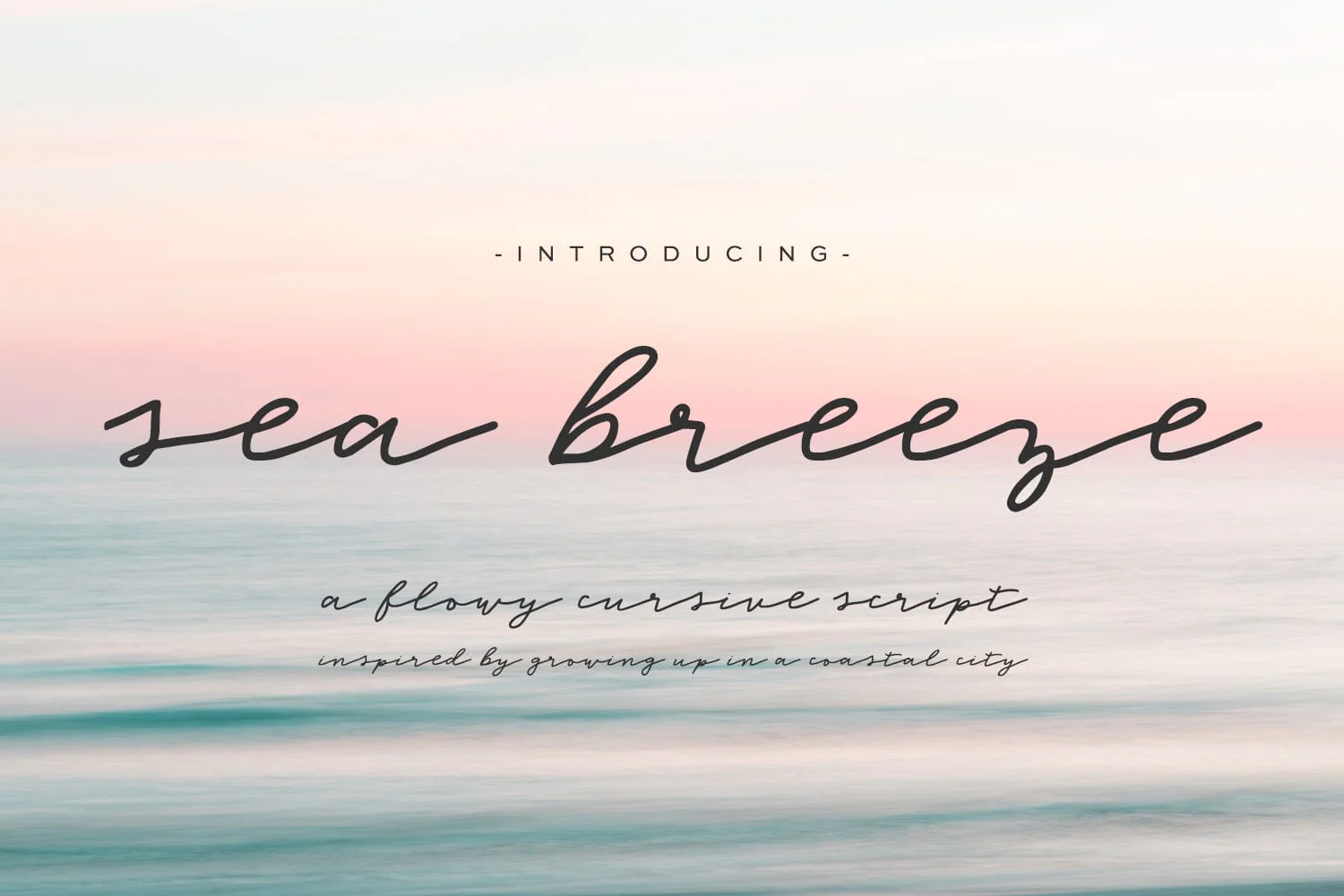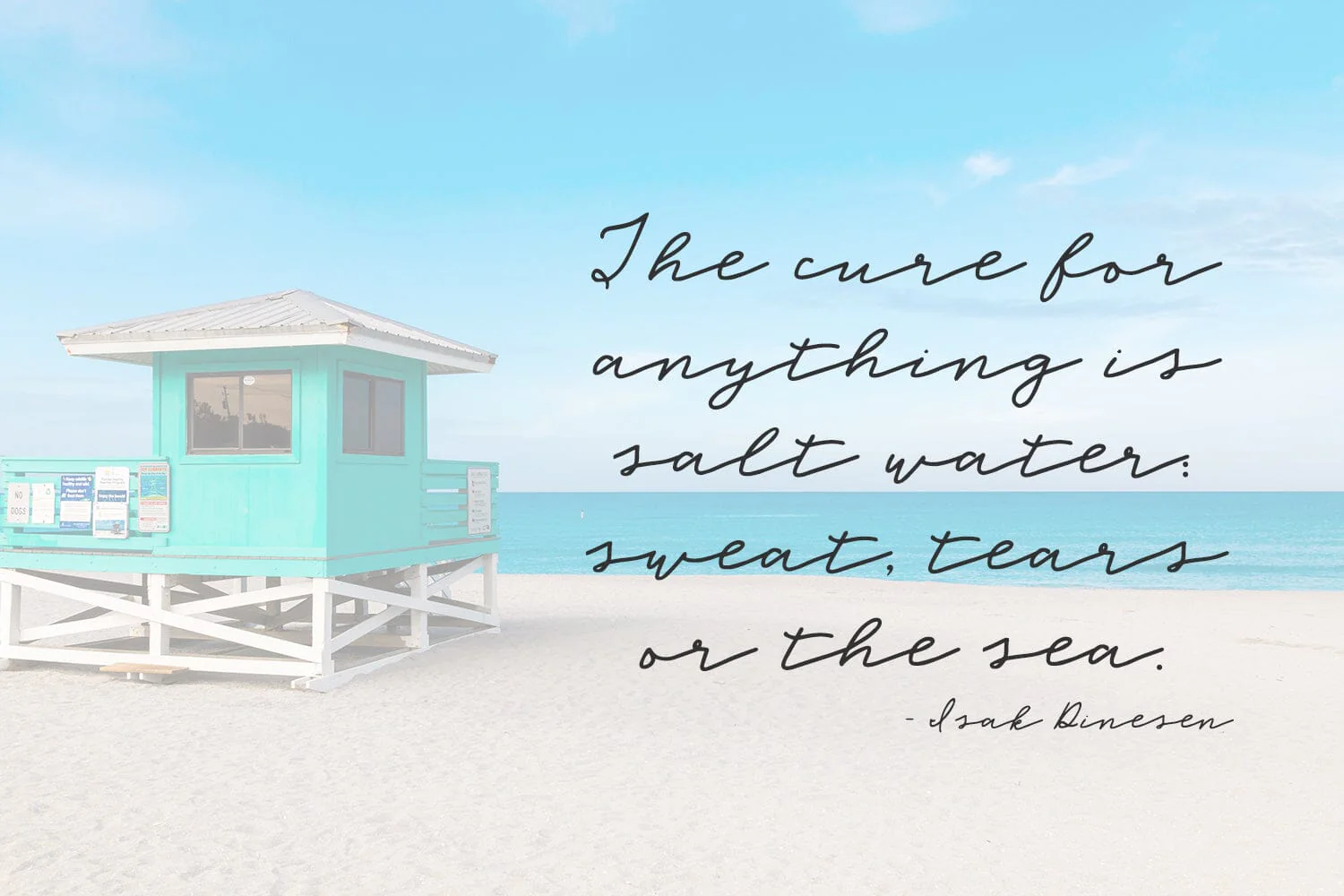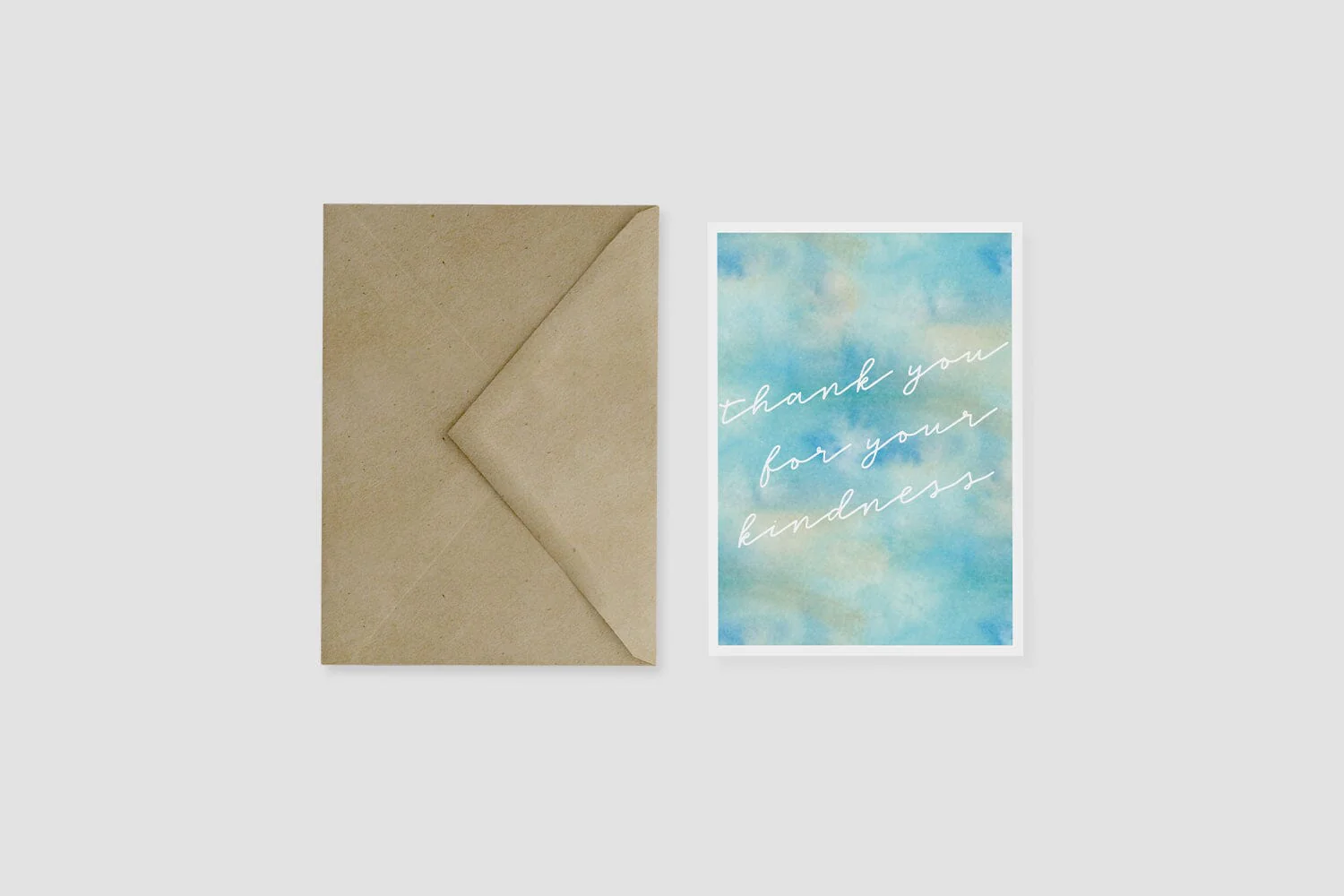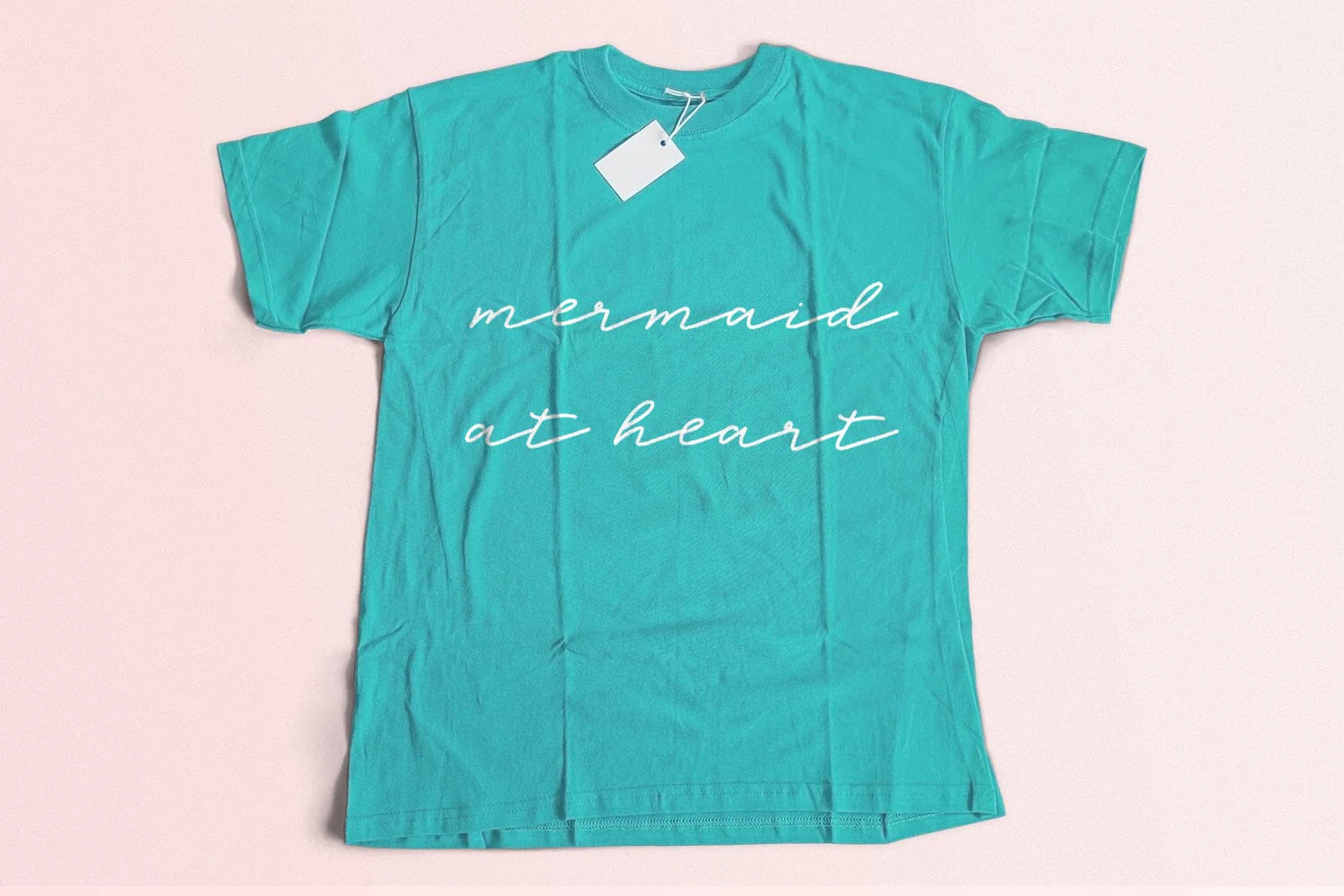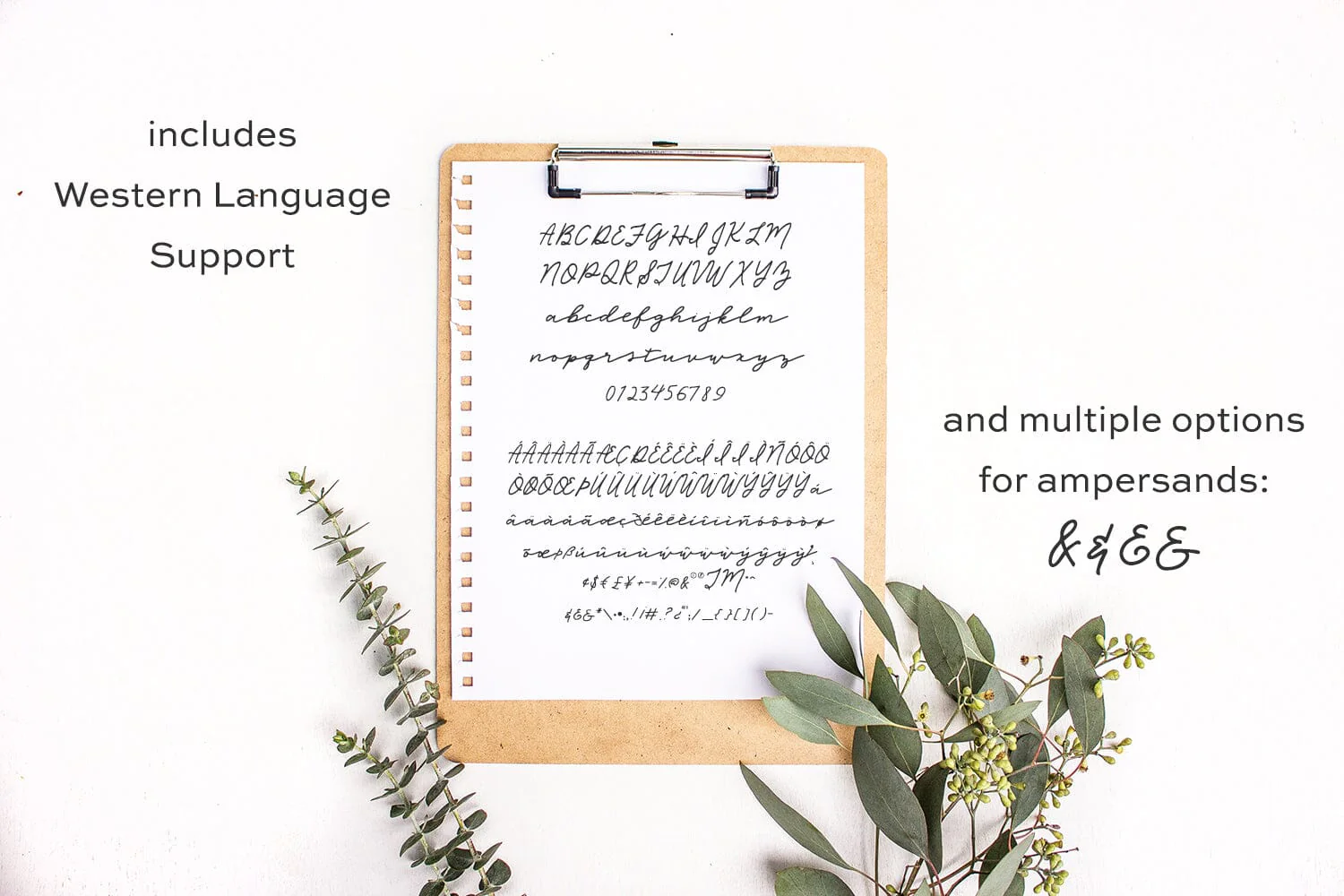
Sea Breeze Signature Script Font
Introducing Sea Breeze
A new hand-lettered signature-style script, inspired by the gentle sea breeze, growing up in a coastal city. Flowy, but clean & crisp like sea air, Sea Breeze is perfect for your next project.
Introducing Sea Breeze
A new hand-lettered signature-style script, inspired by the gentle sea breeze, growing up in a coastal city. Flowy, but clean & crisp like sea air, Sea Breeze is perfect for your next project.